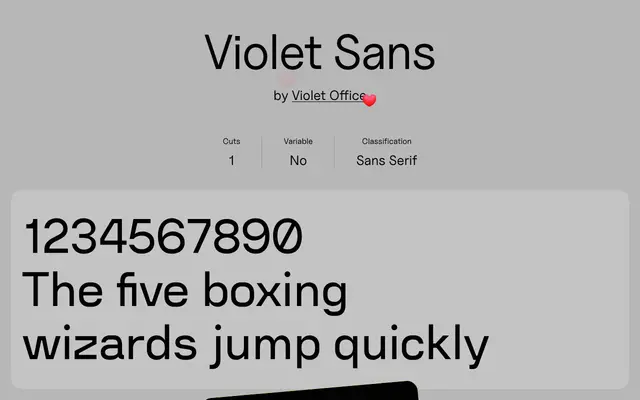
Violet Sans
Released by Violet Office, this is a minimal single-weight sans distributed freely under the SIL Open Font License 1.1. The licence permits commercial use, modification and redistribution with some conditions attached. With only one cut and no variable axis, it suits straightforward projects where a clean, unadorned sans is needed without cost.
The page classifies it as Sans Serif; the name and single-cut release suggest a straightforward grotesque or geometric sans with no further subcategory detail provided.